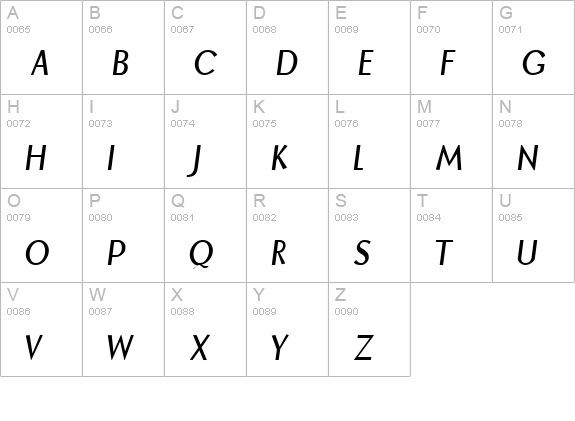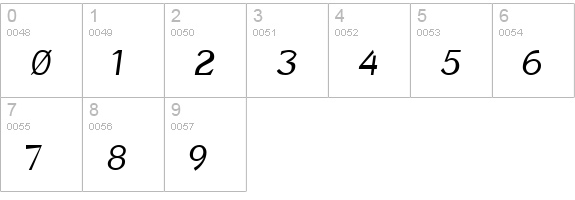
Calypso Font Details
Calypso font exudes elegance and sophistication with its sleek and modern design. Its clean lines and smooth curves make it perfect for a wide range of design projects, from branding to editorial design. This versatile font is sure to make your work stand out and leave a lasting impression. Best of all, Calypso font is completely free to download at FontsMarket.com. Whether you're a professional designer or a hobbyist looking to elevate your projects, this font is a must-have addition to your collection. Don't miss out on the opportunity to enhance your designs with this stunning typeface. Download Calypso font today and unleash your creativity!